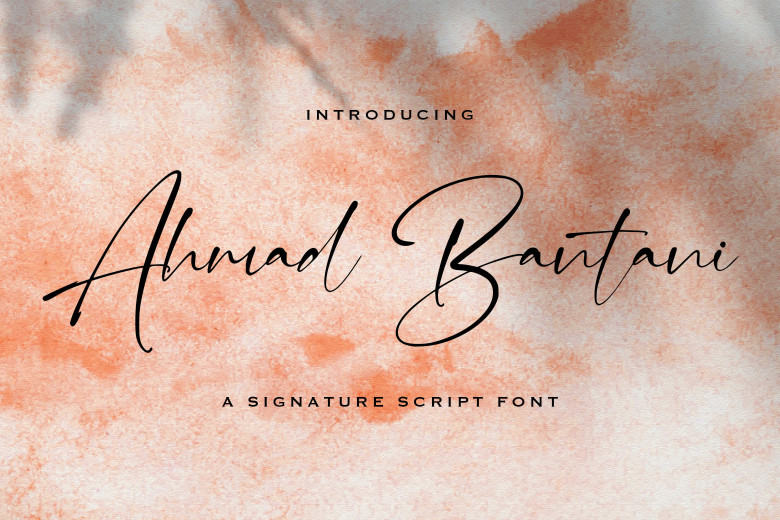
Ahmad Bantani Font
Ahmad Bantani features an exquisite script with flowing, delicate lines. This font boasts well-balanced and attractive characters to make this font suitable for many designs and projects! Give life to your creative vision with Ahmad Bantani today!
Ahmad Bantani Handwritten Font